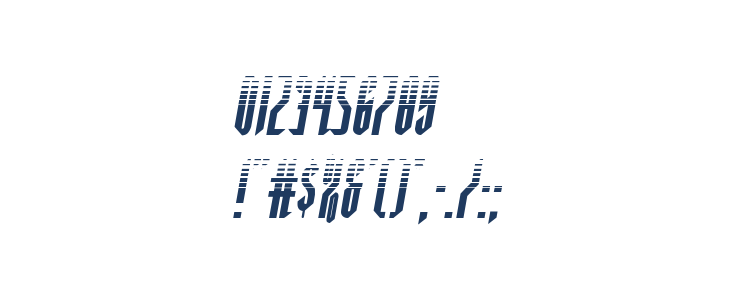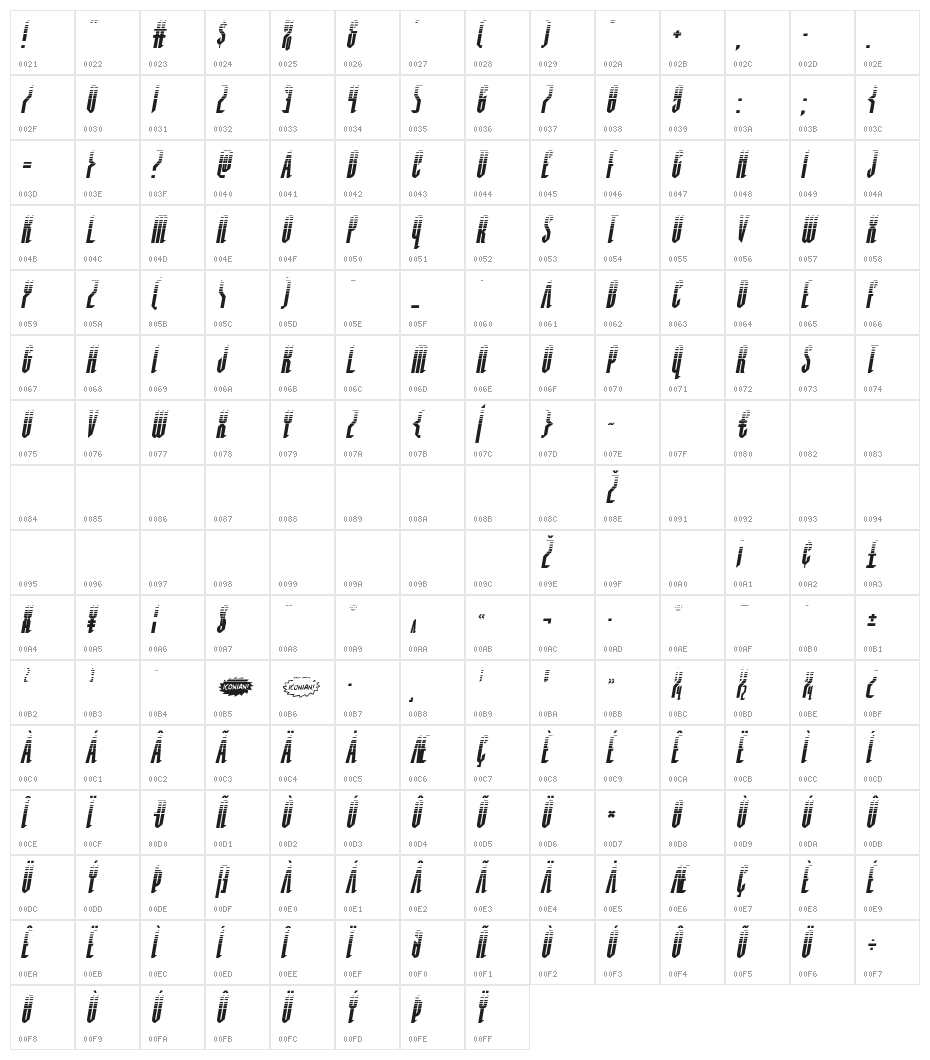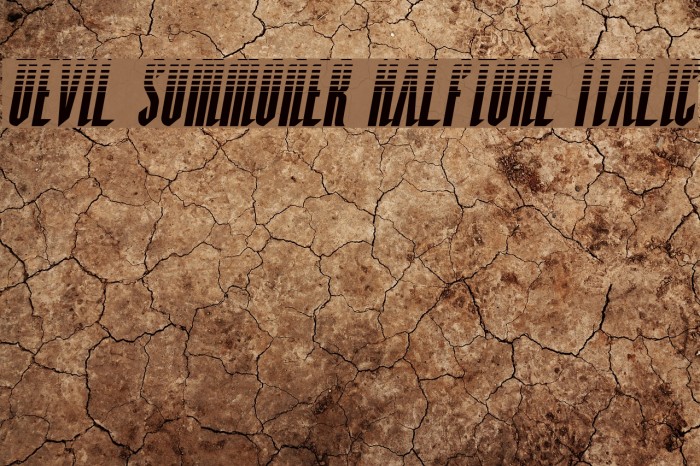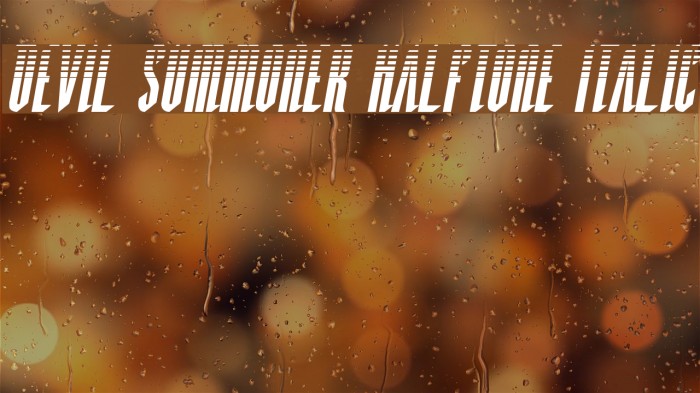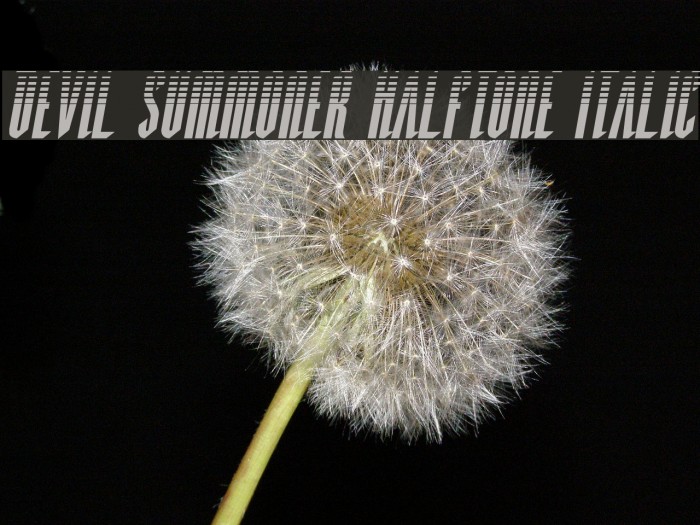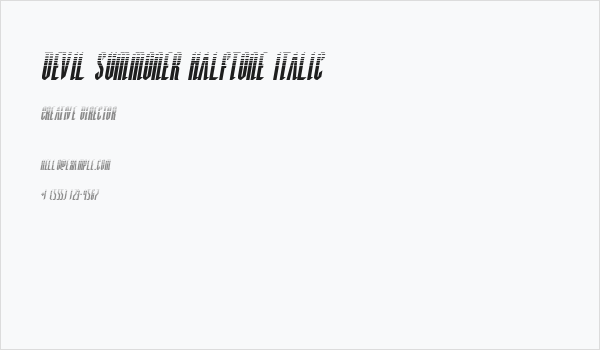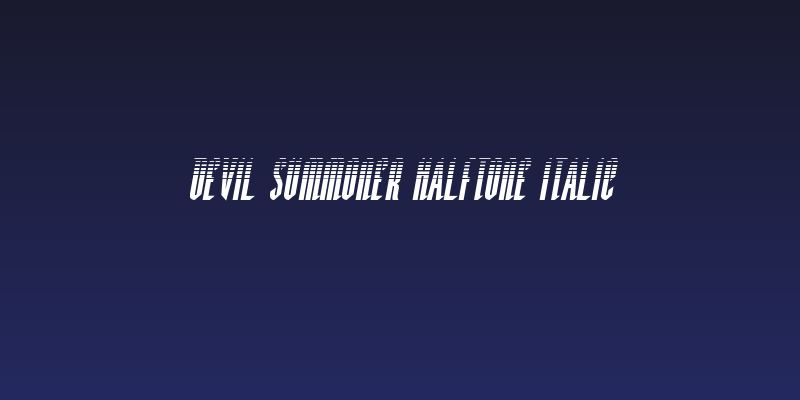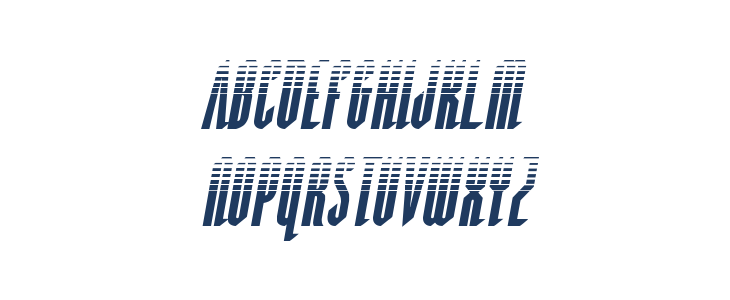
Devil Summoner Halftone Italic Font
Devil Summoner Halftone Italic Description
This font features a bold, italicized style with a unique halftone effect, giving it a dynamic and edgy appearance. The characters are slanted, enhancing the sense of motion and energy. The halftone pattern adds a textured look, making it stand out in display settings. The uppercase and lowercase letters maintain consistent styling, with sharp edges and a futuristic vibe. The numbers and special characters follow the same design principles, ensuring uniformity across all glyphs.